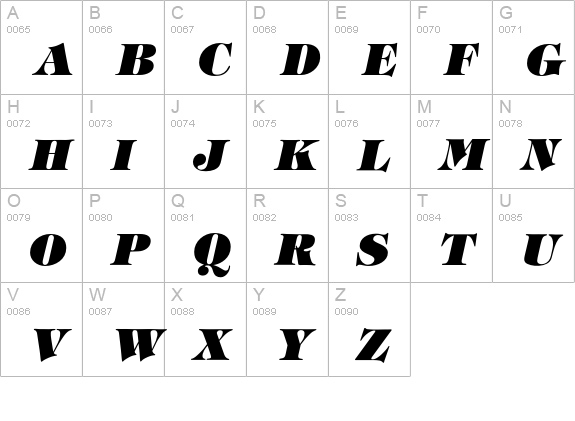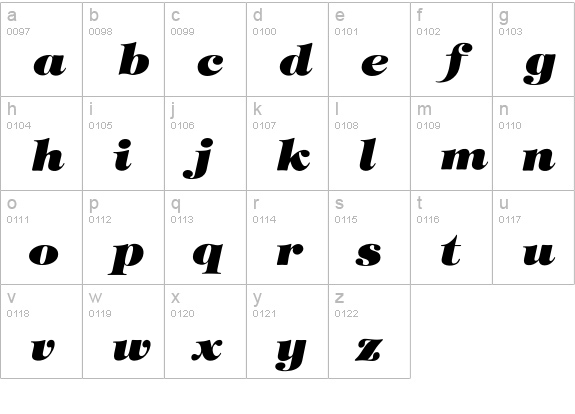
TiffanyHeavyItalic is a stunning and elegant font that exudes sophistication and grace. Its bold yet graceful strokes make it perfect for creating eye-catching designs and adding a touch of glamour to any project. This font boasts a unique italic style that adds a sense of fluidity and movement to the letters, making them appear as if they are effortlessly dancing across the page. With its strong presence and impeccable craftsmanship, TiffanyHeavyItalic is sure to make a lasting impression. Whether used for headlines, logos, or invitations, this font commands attention and instantly elevates the visual appeal of any design. What makes TiffanyHeavyItalic even more exciting is that it is freely available to download at FontsMarket.com. This means that you can unleash your creativity and explore the endless possibilities of this beautiful font without any cost. Whether you are a professional designer or a passionate hobbyist, having access to such a high-quality font for free is an incredible opportunity. So why wait? Head over to FontsMarket.com and grab your copy of TiffanyHeavyItalic today. Let your designs shine with the beauty and elegance of this remarkable font.